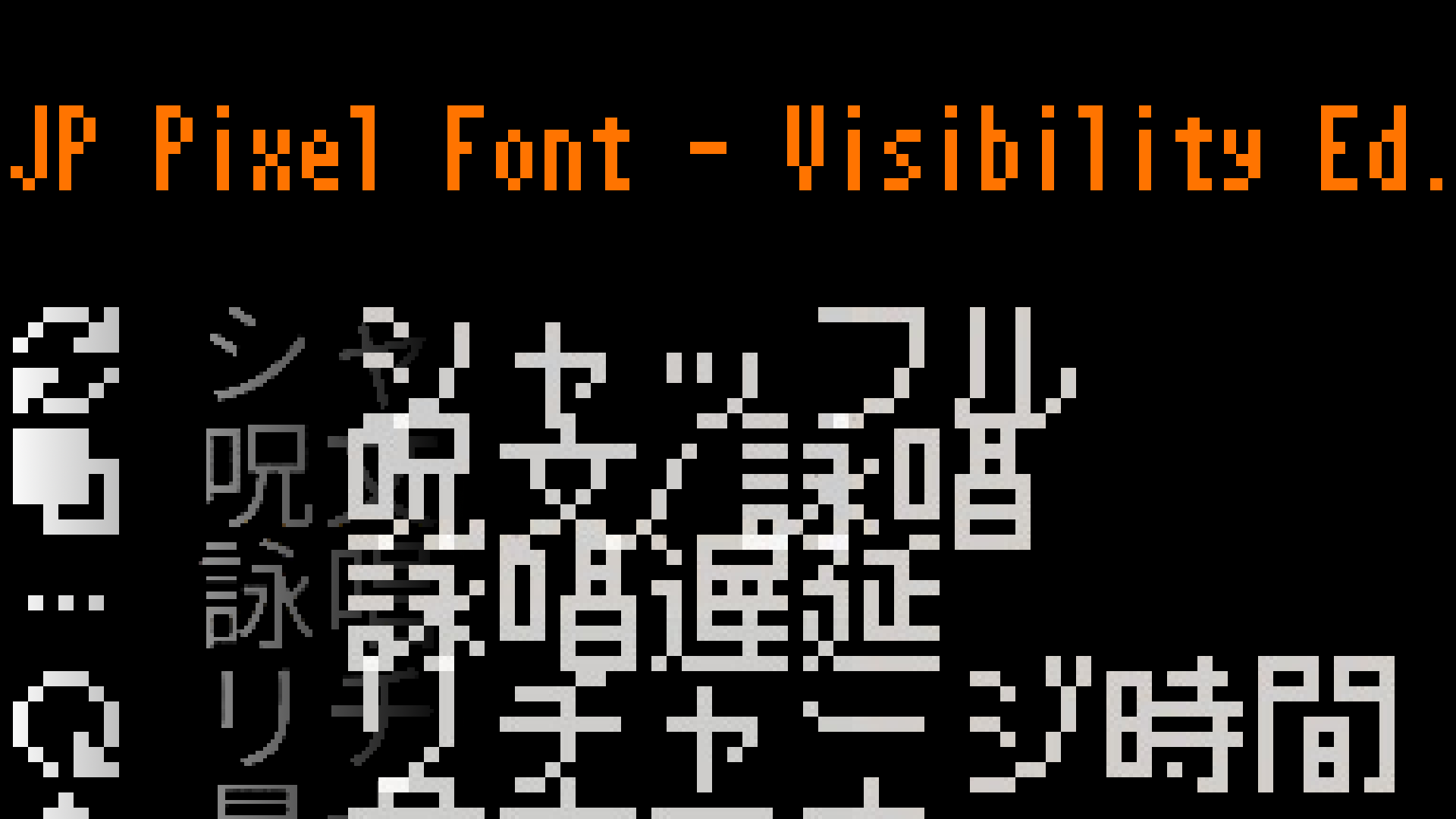
JP Pixel Font – Visibility Ed.
JP Pixel Font – Visibility Edition for Noita
Enhance Your Noita Experience with Improved Japanese Text
For those who delve into the magical depths of Noita, clear and legible text is paramount. This mod, JP Pixel Font – Visibility Edition, offers a thoughtfully crafted solution for players utilizing Japanese translations. It aims to significantly boost the readability of in-game text, ensuring that every spell description, lore snippet, and crucial message is presented with maximum clarity.
A Focus on Readability
The original Japanese description highlights a core design philosophy: increased visibility. This edition revisits the pixel art font used for Japanese translations, implementing changes specifically designed to make the characters easier to discern amidst the chaotic and often visually dense environments of Noita. Whether you’re deciphering ancient runes or understanding the nuances of a new perk, this mod ensures that the Japanese text doesn’t become another obstacle in your perilous journey.
Key Features of the Visibility Edition:
- Optimized pixel font for improved Japanese text readability in Noita.
- Larger character sizing to enhance visual clarity.
- Designed to seamlessly integrate with the Noita interface.
- Aims to reduce eye strain during extended gameplay sessions.
By adjusting the size and possibly the specific pixel arrangements of the Japanese characters, the JP Pixel Font – Visibility Edition transforms potentially difficult-to-read text into a clear and accessible part of your Noita playthrough. This attention to detail ensures that the rich narrative and intricate gameplay mechanics of Noita remain fully understandable, no matter which language you choose to experience it in.